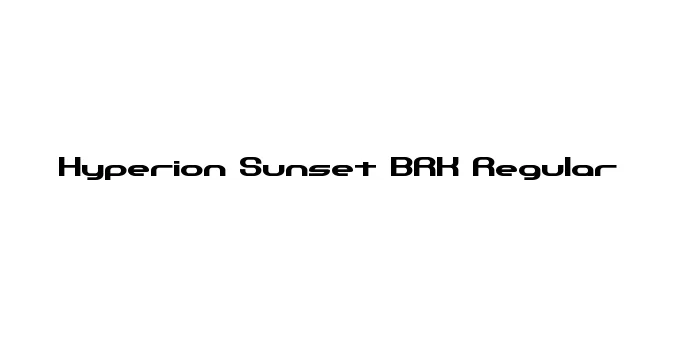
Hyperion Sunset BRK Regular
Designed by Brian Kent (Ænigma Fonts)
| Category | Display / Sci-fi |
| Designer | Brian Kent (Ænigma Fonts) |
Hyperion Sunset BRK Regular is a distinctive display typeface created by Brian Kent, the prolific designer behind the Ænigma Fonts collection. Released during the late 1990s, this font embodies the retro-futuristic aesthetic that dominated early digital and techno-inspired design. It features bold, wide, and geometric letterforms with unique structural cuts and sharp angles, giving it a high-tech, architectural quality that is ideal for making a strong visual statement.
The typeface is characterized by its blocky construction and authoritative presence, making it a staple for projects requiring a science fiction or industrial feel. While it is primarily a display font intended for large sizes, it maintains a clean silhouette that ensures legibility in digital interfaces and gaming environments. Over the decades, Hyperion Sunset BRK has remained a favorite among independent creators due to its striking appearance and the generous licensing legacy of Brian Kent's work.
Hyperion Sunset BRK Regular Best Uses
Title screens and user interface elements for science fiction or cyberpunk genres.
Logo design for technology startups, electronic music artists, or hardware manufacturers.
Bold, eye-catching headlines for event flyers and cinematic posters.
Streetwear graphics and apparel prints seeking a modern, edgy aesthetic.